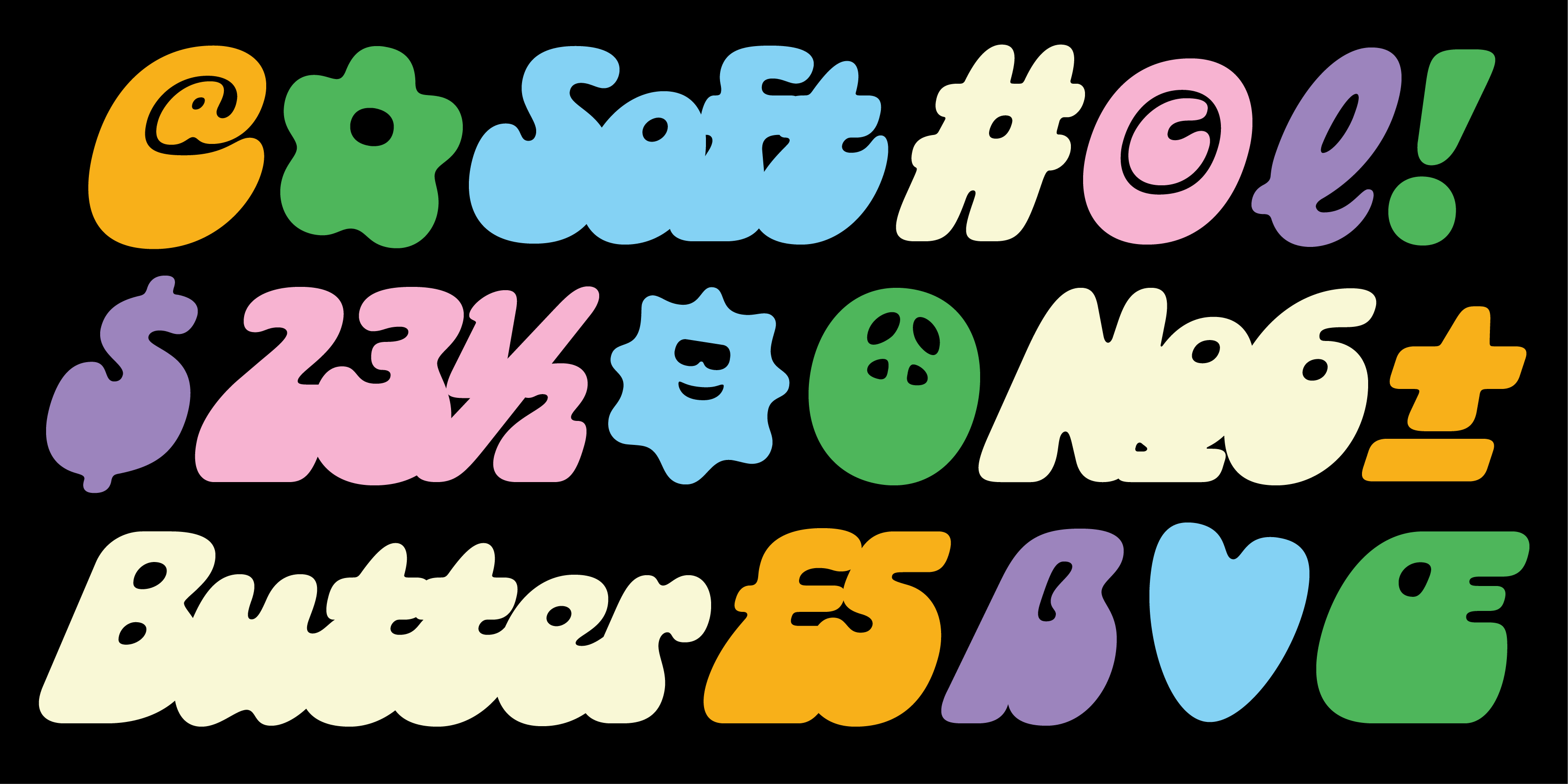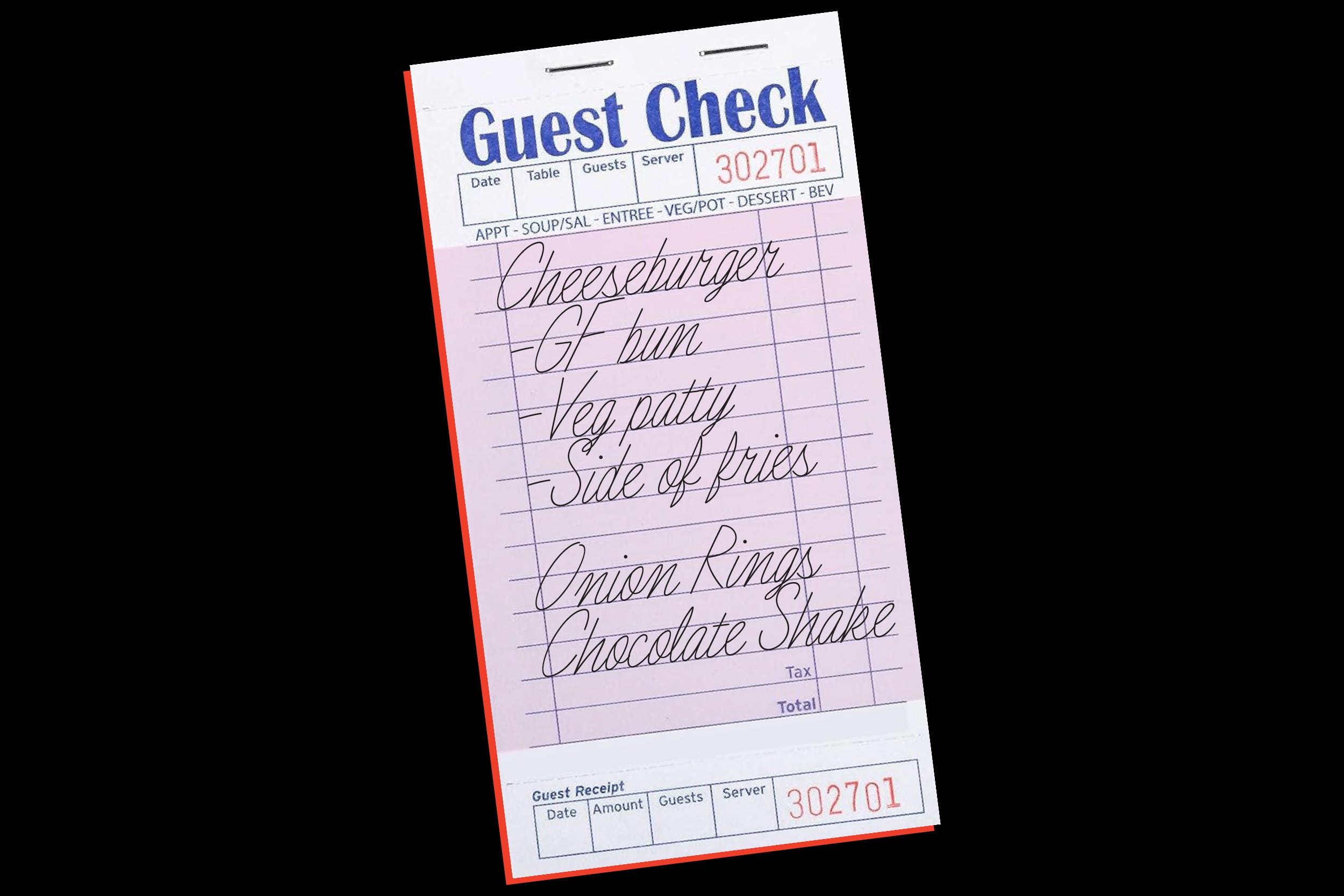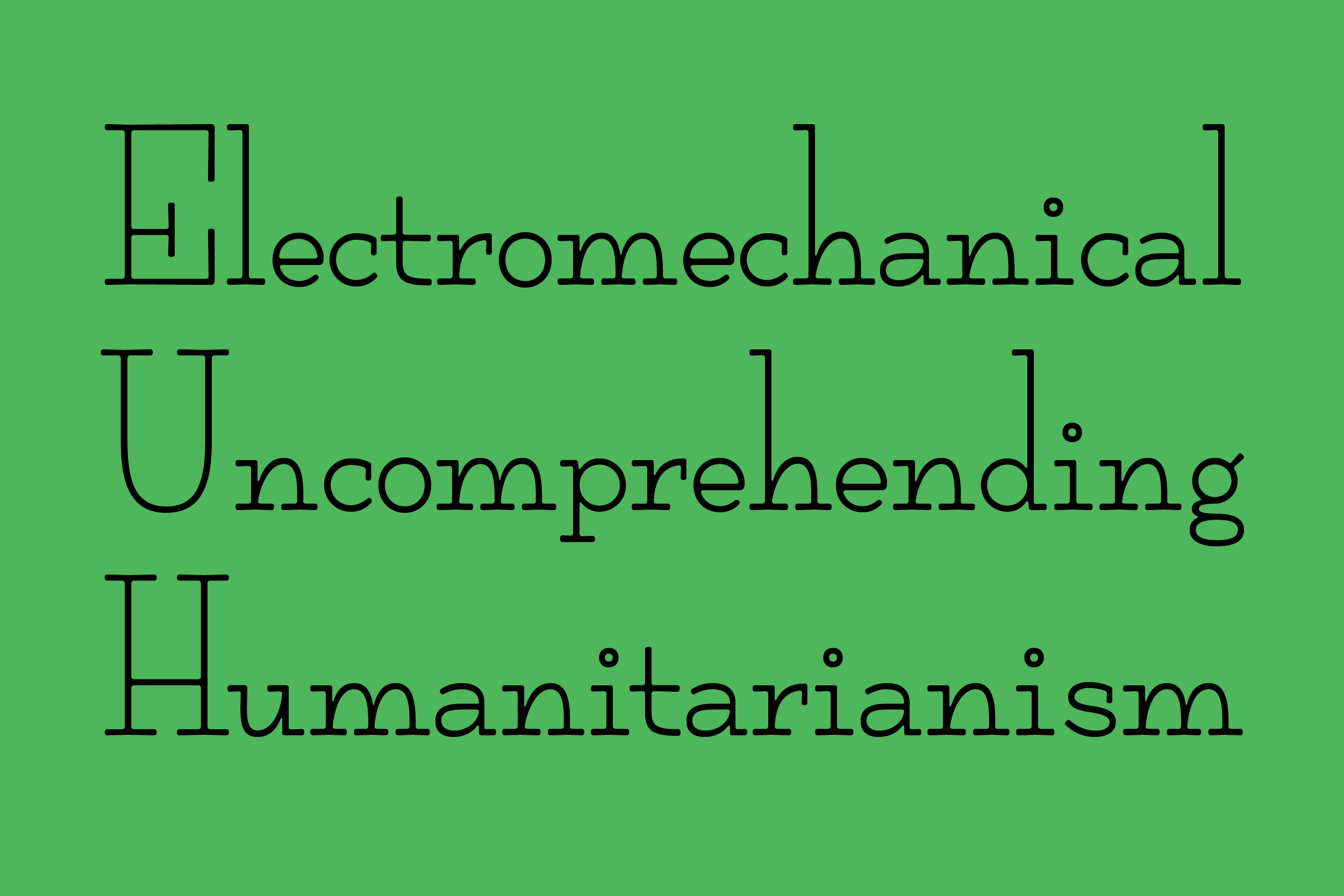
Libbie Bischoff Talks Type, Teaching, and Creative Growth
Get ready for the summer semester with insights from Libbie Bischoff to spark your creative practice.
Looking for creative inspiration? Libbie Bischoff shares her journey into type design, how her process has changed over time, and what teaching has added to her practice. A Minneapolis-based type designer, Libbie graduated from Type West in 2020 and launched her foundry, Type Du Nord, by making 52 fonts in one year. Teaching with Type Electives since the very beginning, she leads both the Type Design Development Workshop and Crash Courses in Type Design.
Why and how did you get started in type design?
I have been interested in lettering and typography as far back as high school! I remember drawing little alphabets in the margins of my notes during class. During my undergrad, I discovered that making fonts is something that you can actually do for work and Iâve been hooked ever since!
Looking back, what advice would you give yourself when you were starting out?
I would tell myself to stop waiting until you know everything and just jump in! You learn so much more by doing things than you do by researching things. And if you canât figure something out, there will always be a nice type designer friend that will answer your questions!
What are the most important foundational skills for someone new to type design? Are there specific exercises or projects you suggest for practice?
Mastering the pen tool and plotting points on the extrema is the first and most important part of the type design process. Itâs something that can be mastered in Adobe Illustrator or other vector tools before starting in type design software.
After that, itâs important to embrace and understand spacing as part of the drawing process. Drawing and spacing are inextricably linkedâyou can not have one without the other. It can be challenging for beginner type designers to grasp this but itâs very important!
Beyond that, itâs a matter of developing your eye, your specific type preferences, and getting lots of feedback from other type designers.
What books, blogs, or online resources had the biggest impact on your learning, and are there any âhidden gemsâ you think more people should know?
For me, it has always been looking at a lot of type! I encourage all my students to get off of Pinterest and look at historical references. There are so many places to find interesting bits of typography! I love looking through archive.org, the Letterform Archive, and seeing what my local library has to offer.
Oftentimes, I find great references and interesting things while exploring my other hobbies and interests. For example, I recently did a filet crochet project and I was looking at historical filet crochet patterns and I found some really interesting lettering examples. Another typeface of mine, Stockinette, was inspired by some lettering I found in a 1950âs knitting magazine. I love revival fonts and when youâre a beginner, you can learn so much from the decisions another person made!
Itâs so important to get eyes on your work. How did you find your community?
It happened quite naturally for me! I clicked with some of my classmates at Type West and some of the students I TAâd for the year after my class. We started scheduling regular virtual meetings to give each other feedback and hold each other accountable. Itâs been a crucial part of my practice and I wouldnât have made it this far without them!
How do you stay inspired or push your creative boundaries when working in a field that can sometimes feel iterative or technical?
I have two thoughts here! First, I love boundaries and limitations so I guess itâs a great spot for me to be in! I am most inspired about my work when there is a difficult problem to solve. Itâs great for my brain and I love finding ways to bend the rules.
Second, staying inspired and creative is a regular practice thatâs all-encompassing for me. I spend a lot of my personal time on creative projects (like knitting, sewing, drawing, painting, etc) and that usually influences my type practice and vice versa. Having a diverse range of creative pursuits helps keep things fresh and interesting! I highly recommend itâhobbies are wildly underrated!
How has your process evolved since your first typeface to now? Are there tools, habits, or checkpoints youâve developed that have become indispensable?
My process is a lot more extensive than it was when I first started out. I do more testing and actually use the typefaces quite a lot before I release them. I have always done it to some degree but when I put on my graphic designer hat, I always find little problems to fix or things I want to add. It has the added benefit of being useful for marketing the typefaces as well!